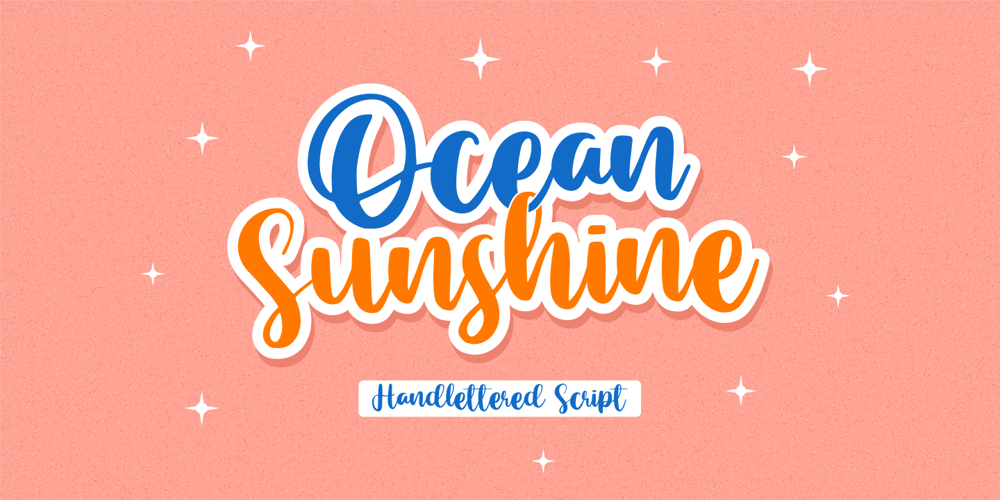
Ocean Sunshine Font Family was designed by Fachrizal Yusuf and published by Allouse Studio. Ocean Sunshine contains 1 styles and family package options. Proudly Present, Ocean Sunshine Handlettered Script Font. Sexy, playful, bouncy, modern and cute! UwUOcean Sunshine also come with Multi-Lingual Support.We highly recommend using a program that supports OpenType features and Glyphs panels like many of Adobe apps and Corel Draw, so you can see and access all Glyph variations.Ocean Sunshine is perfect for any tittles, logo, product packaging, branding project, megazine, social media, wedding, or just used to express words above the background.Enjoy the font, feel free to comment or feedback, send me PM or email. Thank You!